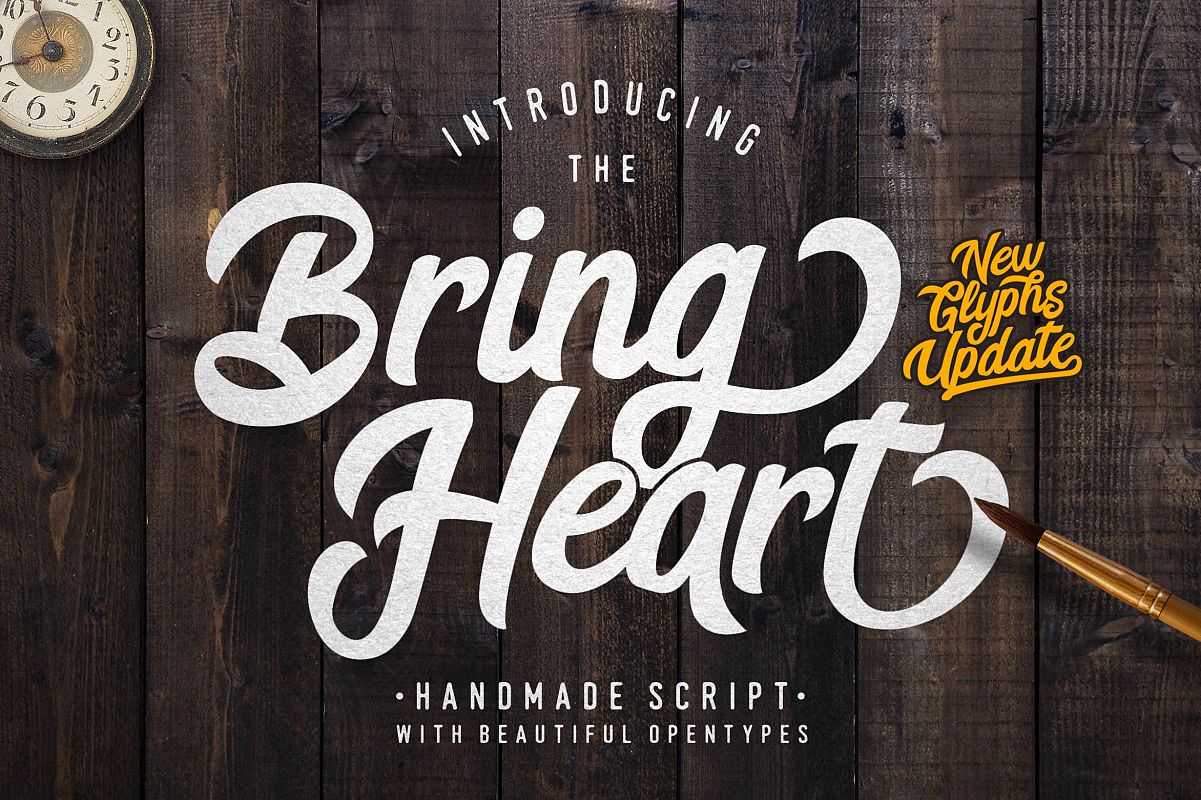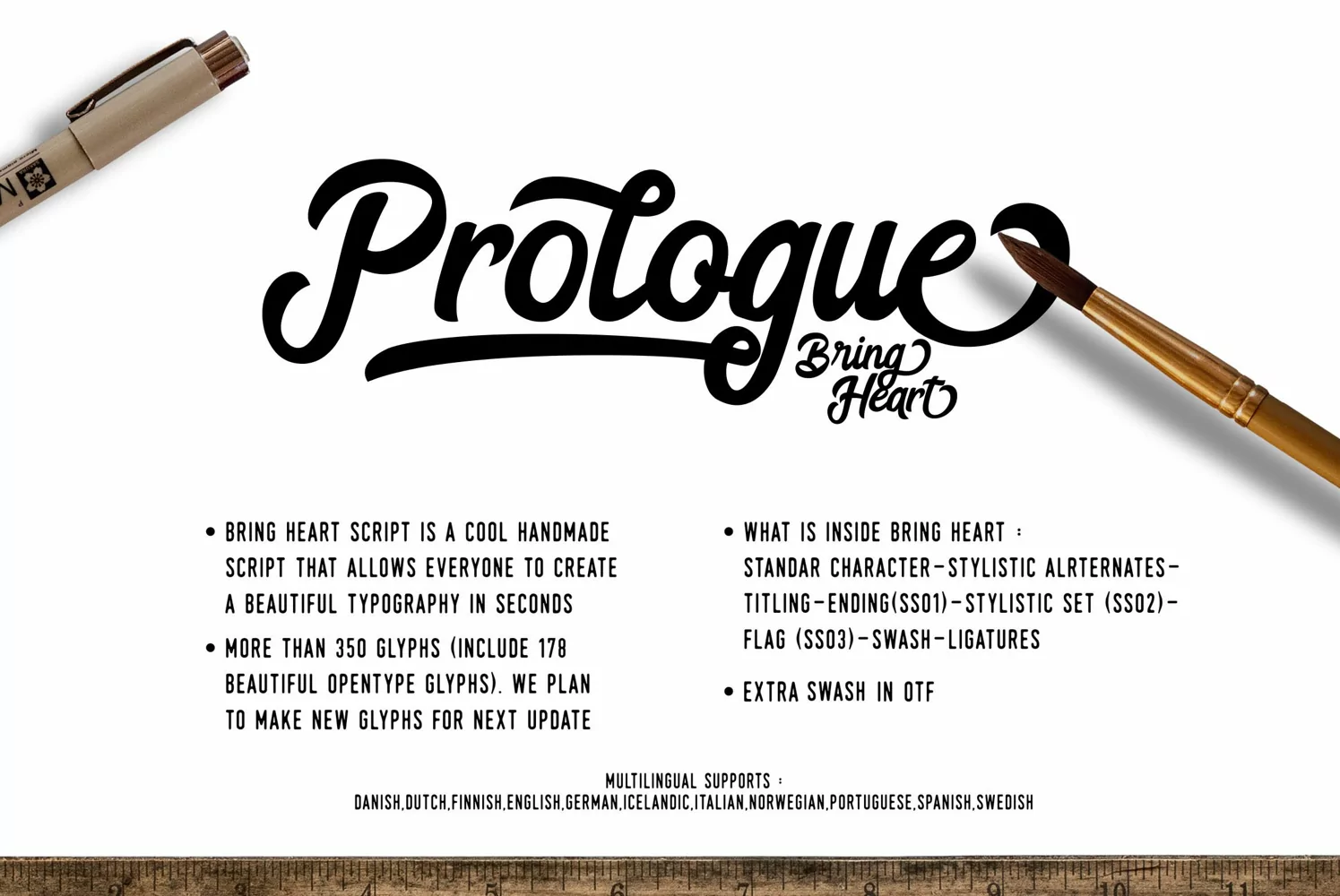
The Bring Heart is stylish retro-modern script. Comes with a lot of
beautiful opentype features, Bring Heart is very good for branding
projects, product packaging, homeware design,or simply as a stylish text
overlay to any background image.
- Opentype : Stylistic Alternate, Titling, Ending SS01, Stylish Set SS02, Uppercase Flag SS03, Swash, Ligature